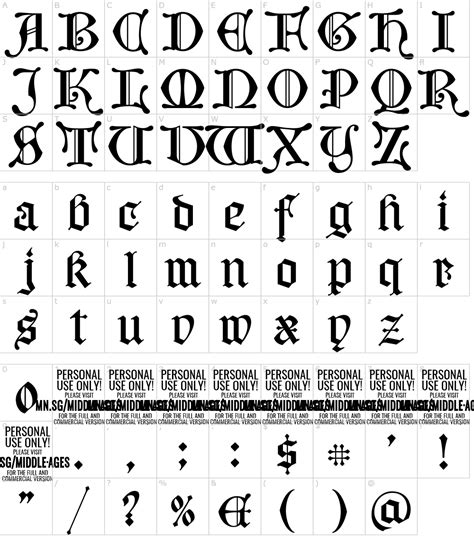
MIDDLE AGES FONT
The Middle Ages font is a captivating and distinctive style of typography that transports users back to the medieval era. This font is inspired by the aesthetic of the Middle Ages, a period known for its intricate calligraphy, illuminated manuscripts, and Gothic architecture. It is a unique and timeless choice for various design projects, offering a blend of elegance and rustic charm.
The font often incorporates calligraphic elements, with flowing lines and ornate details that mimic the handwriting of medieval scribes. This style can add a touch of sophistication and uniqueness to any text, making it ideal for creating invitations, book covers, or even for branding and logo design. Additionally, it can evoke a sense of historical context, transporting users to a different time and place.
One of the key benefits of using this font is its ability to convey a sense of tradition and craftsmanship. The intricate letterforms and attention to detail can enhance the visual appeal of any design, making it stand out and leave a lasting impression. Whether used for a historical documentary, a fantasy novel, or a themed event, the Middle Ages font can provide a truly immersive and authentic experience.